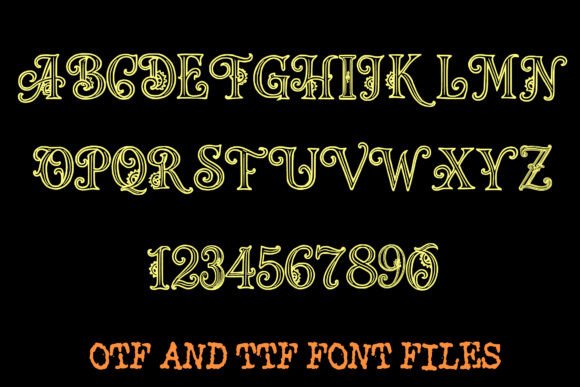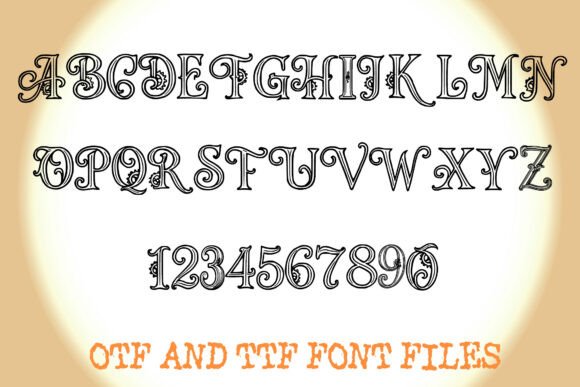
Unlocking the Whimsy of the Past: The Allure of Fancy Steampunk Font
As I sat hunched over my design desk, flipping through a stack of vintage travel brochures, I stumbled upon an old advertisement for a 19th-century train company. The intricate typography and industrial accents caught my eye, and I knew exactly what I had to do – dig up a font that captured the essence of that bygone era. That’s when I discovered the Fancy Steampunk Font, a stunning blend of vintage charm and industrial flair.
This captivating font is perfect for designers looking to add a touch of retro elegance and mechanical whimsy to their projects. From themed invitations to book covers, the Fancy Steampunk Font is a valuable asset for anyone seeking to transport their audience to a world of nostalgia and wonder.
Fancy Steampunk Font Key Features
- Unique Characteristics: The Fancy Steampunk Font features intricate, hand-drawn designs with a mix of Victorian and industrial elements, making it perfect for steampunk-themed projects.
- Character Set: The font includes a wide range of characters, including uppercase and lowercase letters, numbers, and punctuation marks, as well as a variety of special characters and symbols.
- Font Style: The font has a unique, ornate style with a mix of curved and straight lines, giving it a dynamic and eye-catching appearance.
Fancy Steampunk Font Review
I’ve worked with a lot of fonts in my design career, but the Fancy Steampunk Font is something special. ✨ The first thing that caught my eye was the unique blend of Victorian and sci-fi elements. It’s perfect for projects that need a touch of elegance and industrial grit.
Here are some things that really work well:
- The font is highly customizable, with a wide range of styles and colors to choose from.
- The high-resolution graphics make it look amazing on high-pixel-density screens.
- The font is also highly legible, even at small sizes.
However, there are a few limitations:
Overall, I’m really impressed with the Fancy Steampunk Font. It’s a great choice for designers who need a unique and eye-catching font for their projects. Just be aware of the limitations and make sure to test it thoroughly before using it in a production environment.
Fancy Steampunk Font: A Practical Application Guide
To get the most out of the Fancy Steampunk Font, try the following:
- Use it in combination with other steampunk-inspired elements, such as gears and clockwork mechanisms.
- Experiment with different font sizes and colors to create visual interest.
- Use it for titles and headings to add a touch of elegance and sophistication.
The Fancy Steampunk Font is perfect for:
- Steampunk-inspired designs and artwork.
- Science fiction and fantasy projects.
- Choose a dark background to make the font stand out.
- Use the font for headings and key phrases to add a touch of elegance.
- Combine with distressed textures and gears to give it a steampunk feel.
- Use bold lines and metallic colors to create a sense of industrialism.
- Add some Victorian-era-inspired patterns, such as florals or damask.
- Experiment with layering different textures to create depth.
- Choose a worn, leather-like texture to give the journal a vintage feel.
- Use the font for titles and headings to add a touch of whimsy.